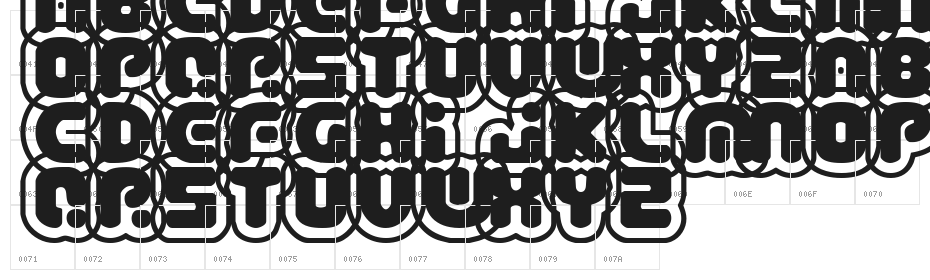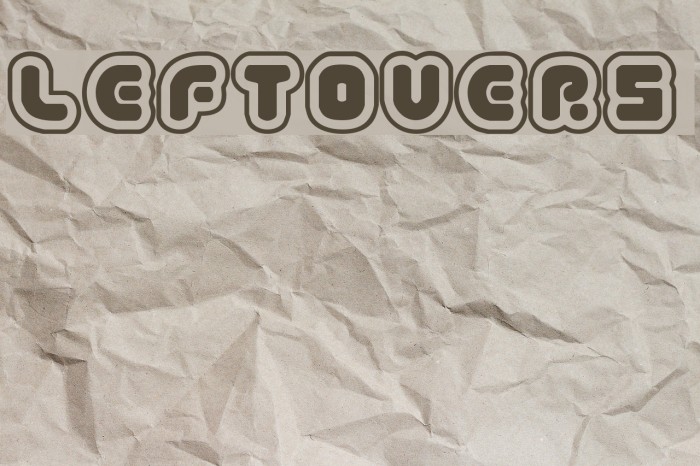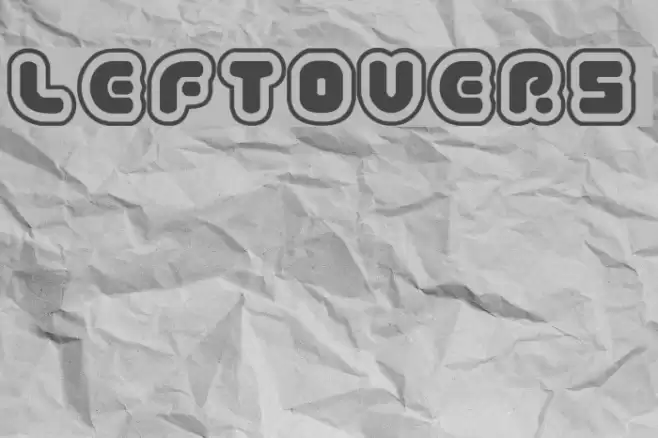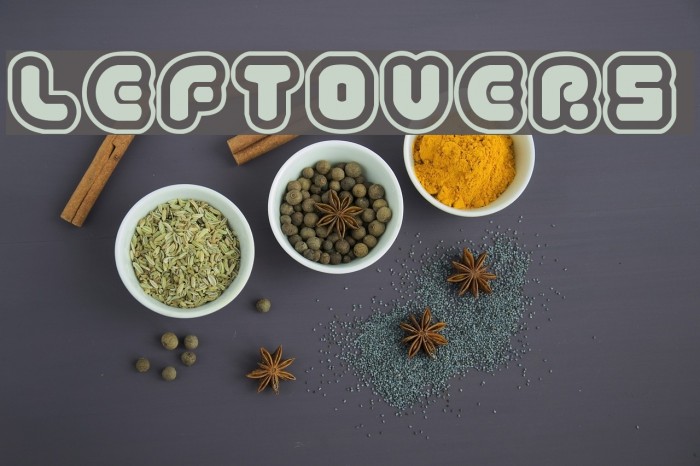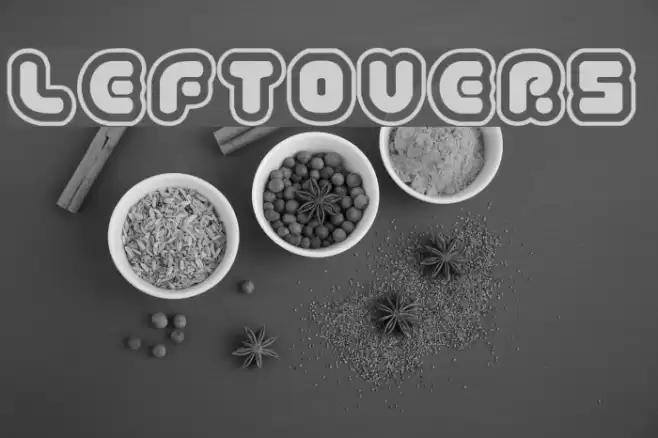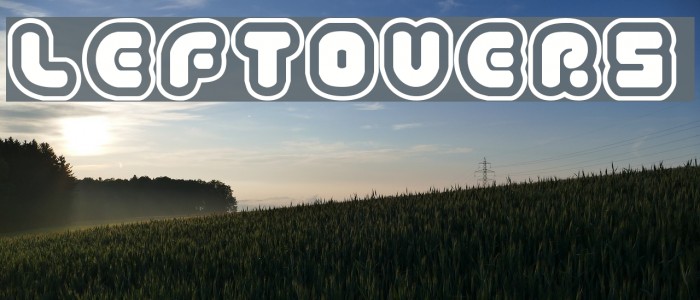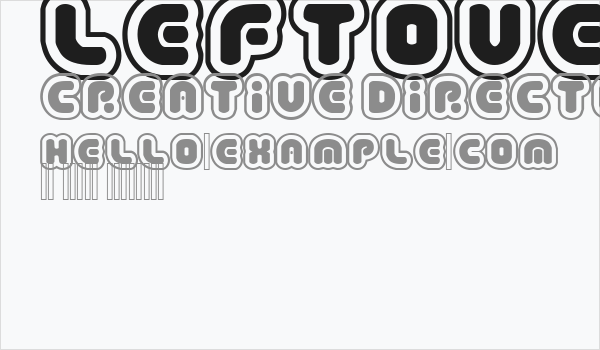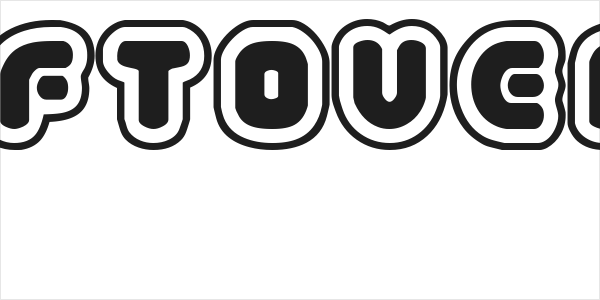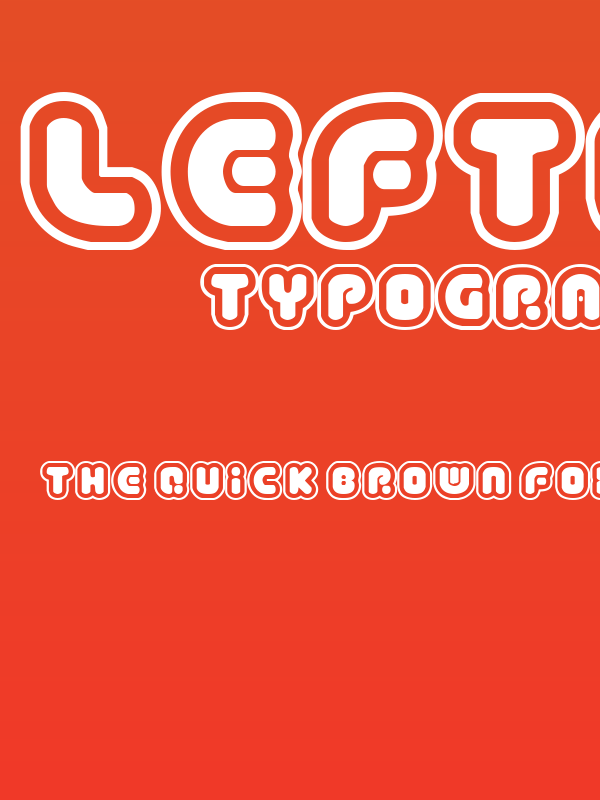
LeftOvers 6 Font
LeftOvers 6 Description
This font features a bold, playful design with a double-outline effect that gives it a three-dimensional appearance. The characters are rounded and have a uniform thickness, creating a cohesive and modern look. The uppercase and lowercase letters maintain a consistent style, with the lowercase letters mirroring the uppercase in form. The numbers and special characters follow the same design principles, ensuring a harmonious overall appearance. This font's unique style makes it stand out, making it ideal for creative and eye-catching designs.
| Proposed Projects | Ideal for posters, logos, children's books, and playful branding projects. |